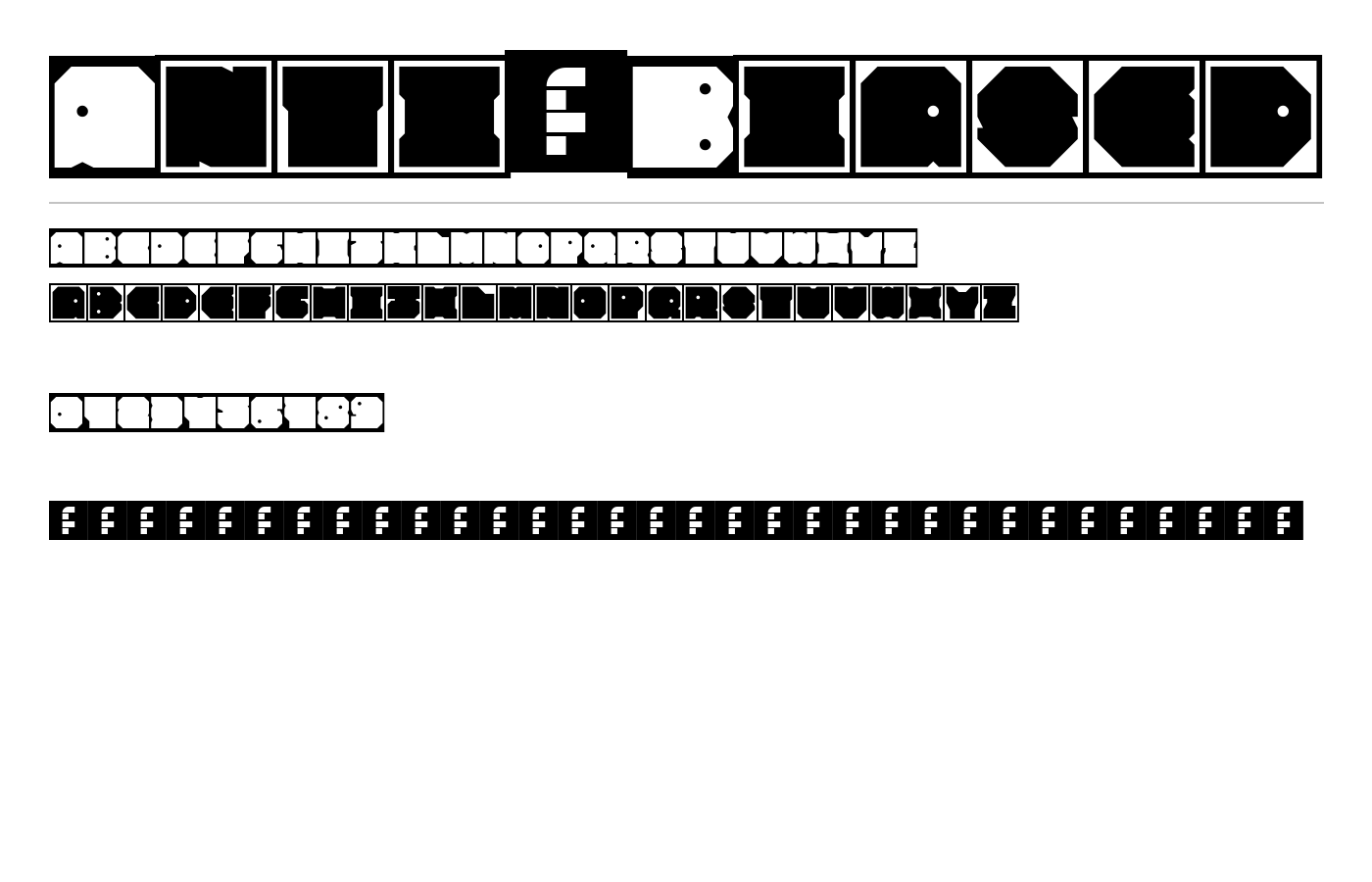
Anti-Biased is a bold, geometric sans serif font characterized by its heavy weight, blocky shapes, and strong contrast between solid and negative space. With its uniform square letterforms and unique cut-out details, it conveys a modern, industrial feel that is perfect for eye-catching headlines, logos, and graphic design projects seeking a futuristic or tech-inspired style. This font works best in large sizes where its striking, modular shapes can make a bold visual impact.
Anti-Biased Font
About Anti-Biased Font
| Font family | Anti-Biased Font |
| Designer | Noronha |